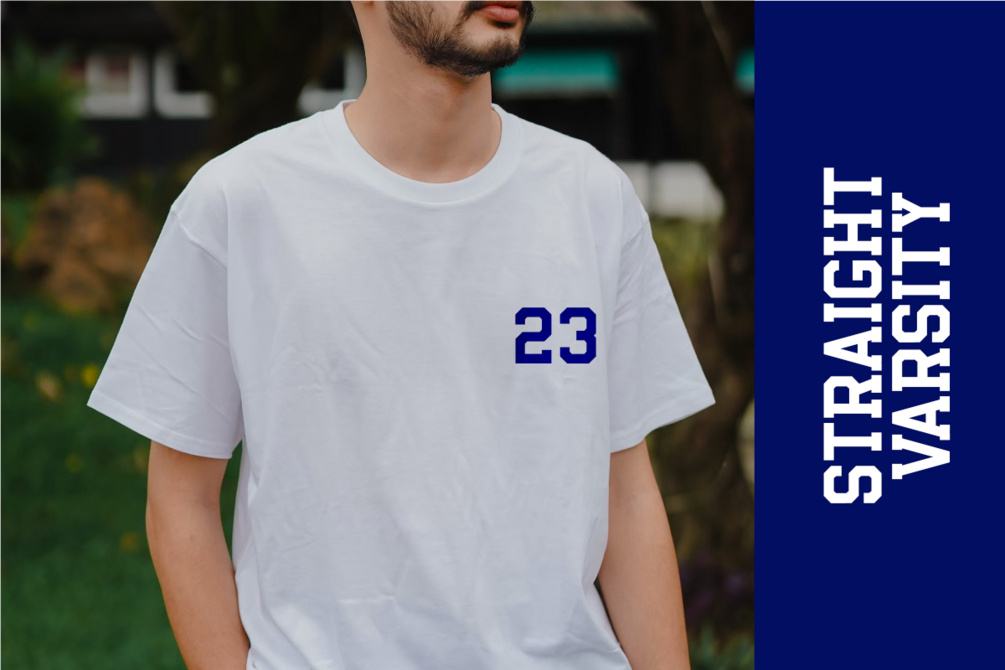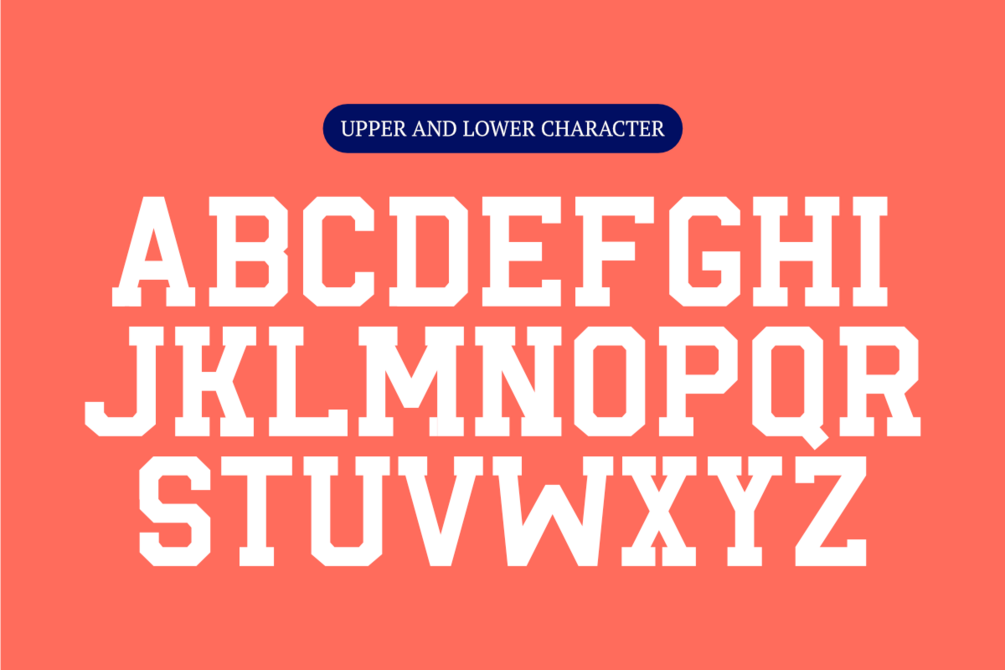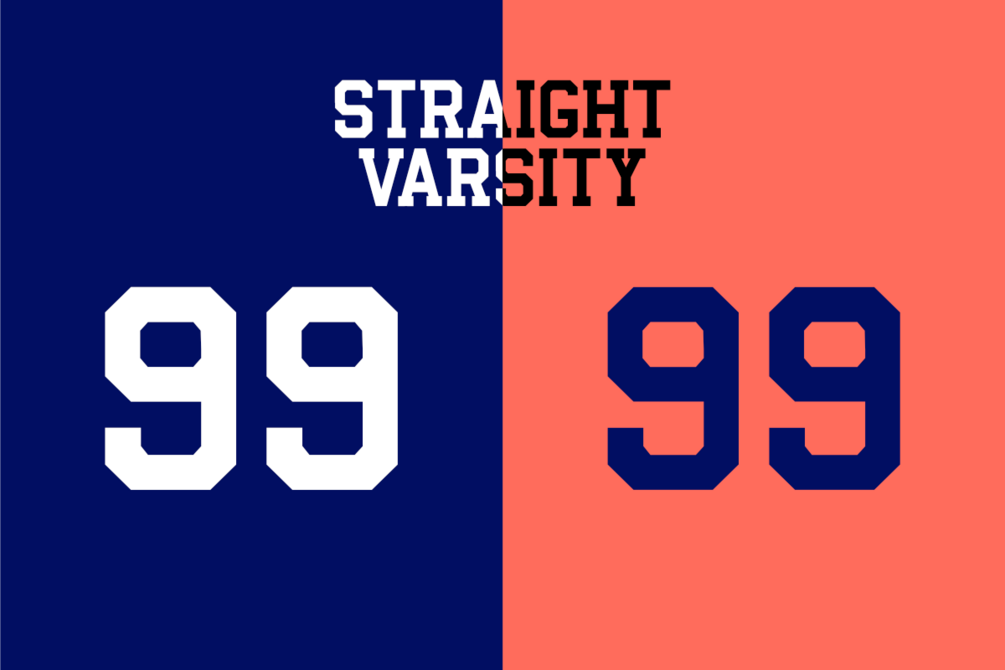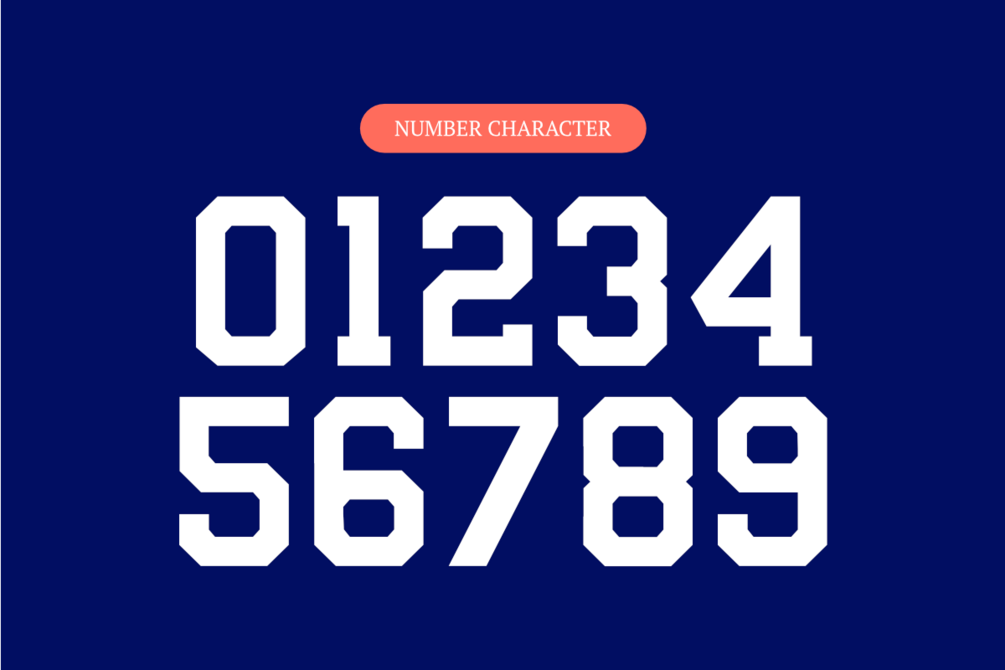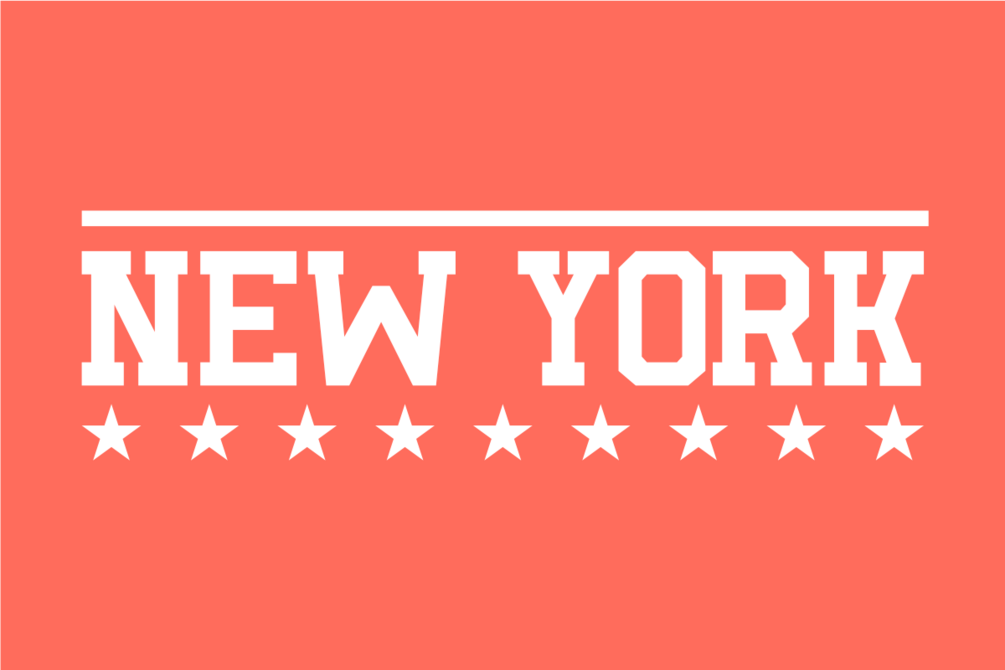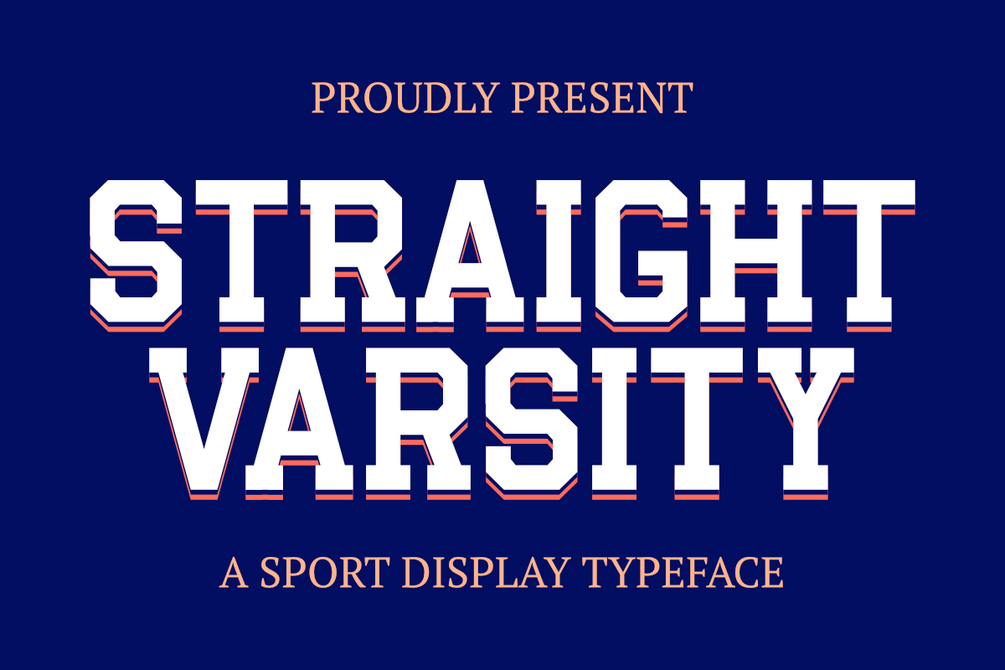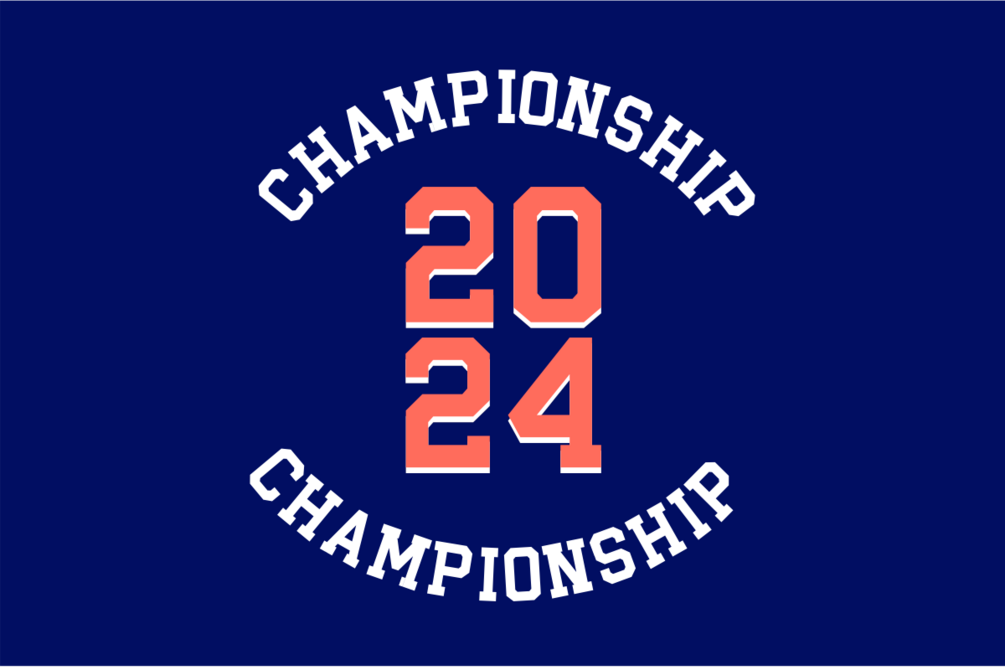
Straight Varsity - Sporty Slab Serif Font
Straight Varsity is an authentic sports display font. A font that is very suitable for crafts, labels, quotes, SVG files, decorations, labels, logotypes, book covers, t-shirts, web, posters, stickers, wall art, or other ideas. A font suitable for Crafters and Graphic Designers. This font is also suitable for Social Media. Compatible with various tools such as Photoshop or Silhouette Design Project.